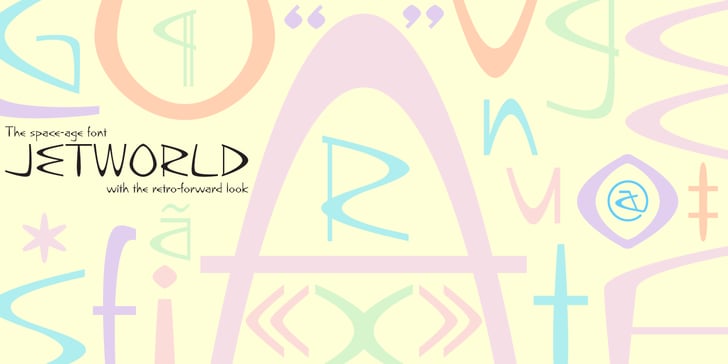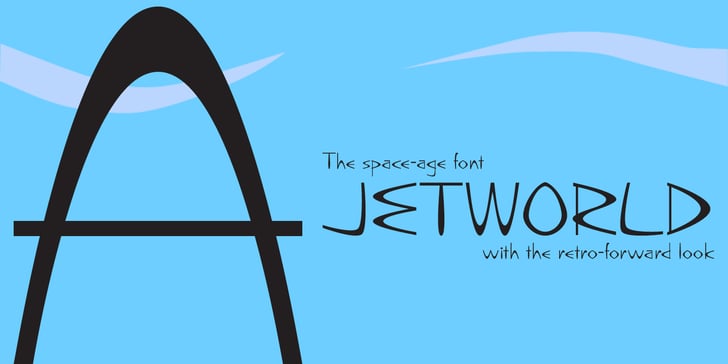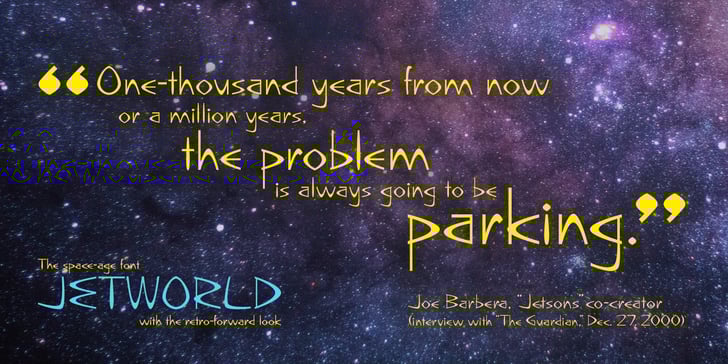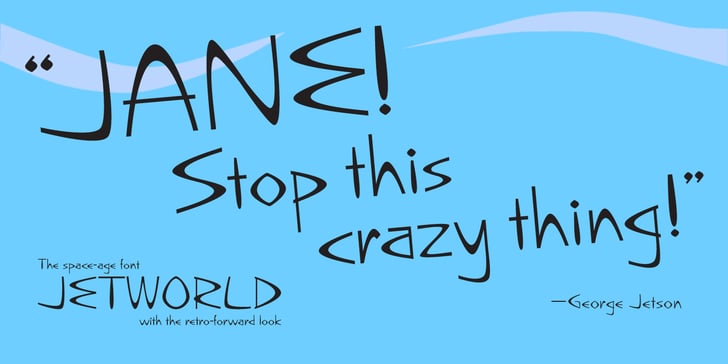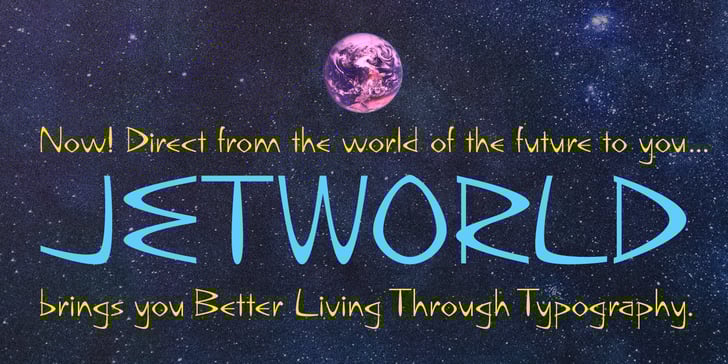
The Jetworld Font Family was designed by Stephen Lenius and published by Nelson Borhek Press. Jetworld contains 1 style.
Jetworld is the space-age typeface with the retro-forward look. Jetworld’s tapered and weighted parabolic-arch curves interplay with its rigid, straight verticals and horizontals to create an unexpected but pleasing motion and a rhythm that is constantly changing. Jetworld is an OpenType font that speaks of clean space-age design, midcentury optimism, and the promise of new frontiers.
Jetworld gives a midcentury-modern or retro-futuristic look to book covers, magazine layouts, posters, and album covers. But Jetworld is adaptable, too. With hints of ancient cuneiform writings mixed with the look of markings on an alien spaceship, Jetworld spans eons. And Jetworld’s large character set includes multi-lingual support and many other special characters. That means Jetworld can be used for more than just headlines and more than just English. Jetworld combines a distinctive personality with surprising readability.
Jetworld is unusual in that it is not descended from handwriting or calligraphy. Instead, Jetworld was inspired by midcentury modern architecture and consumer goods. Think of the parabolic arches seen in midcentury masterpieces like the Theme Building at Los Angeles International Airport, the TWA terminal at JFK Airport in New York, and even the cartoon architecture of “The Jetsons” television show. Think of boomerang-patterned Formica countertops and tabletops, or arch-shaped “hairpin” legs on midcentury furniture. Jetworld’s character shapes were inspired by all of these.
Jetworld—direct from the world of the future to you.